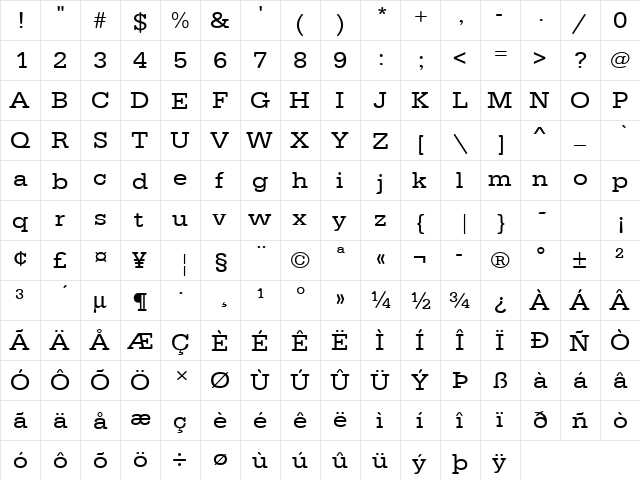
URWTypewriterTExtWid Regular
Design Context for URWTypewriterTExtWid Typeface
URWTypewriterTExtWid uses fixed-width spacing throughout, giving it the structured, systematic character associated with coding environments and technical documentation.
A natural fit for code editors, technical documentation, developer-focused branding, and terminal-inspired UI.
Pro Tip: Pair URWTypewriterTExtWid with a proportional sans for UI contexts where code-style labels and regular body copy need to coexist.